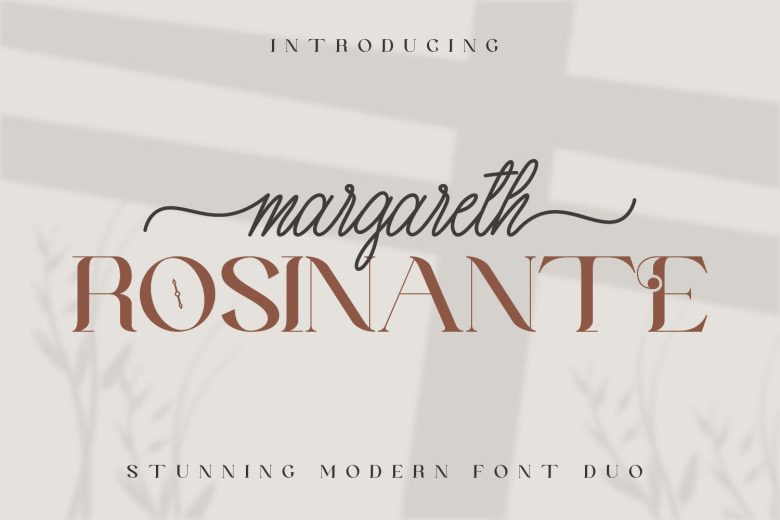
Margareth Rosinante Font Duo
Margareth Rosinante Duo is a spectacular duo font (serif and script). Incredibly versatile, this font fits a wide pool of designs, elevating them to the highest levels. This font is PUA encoded which means you can access all of the glyphs and swashes with ease!